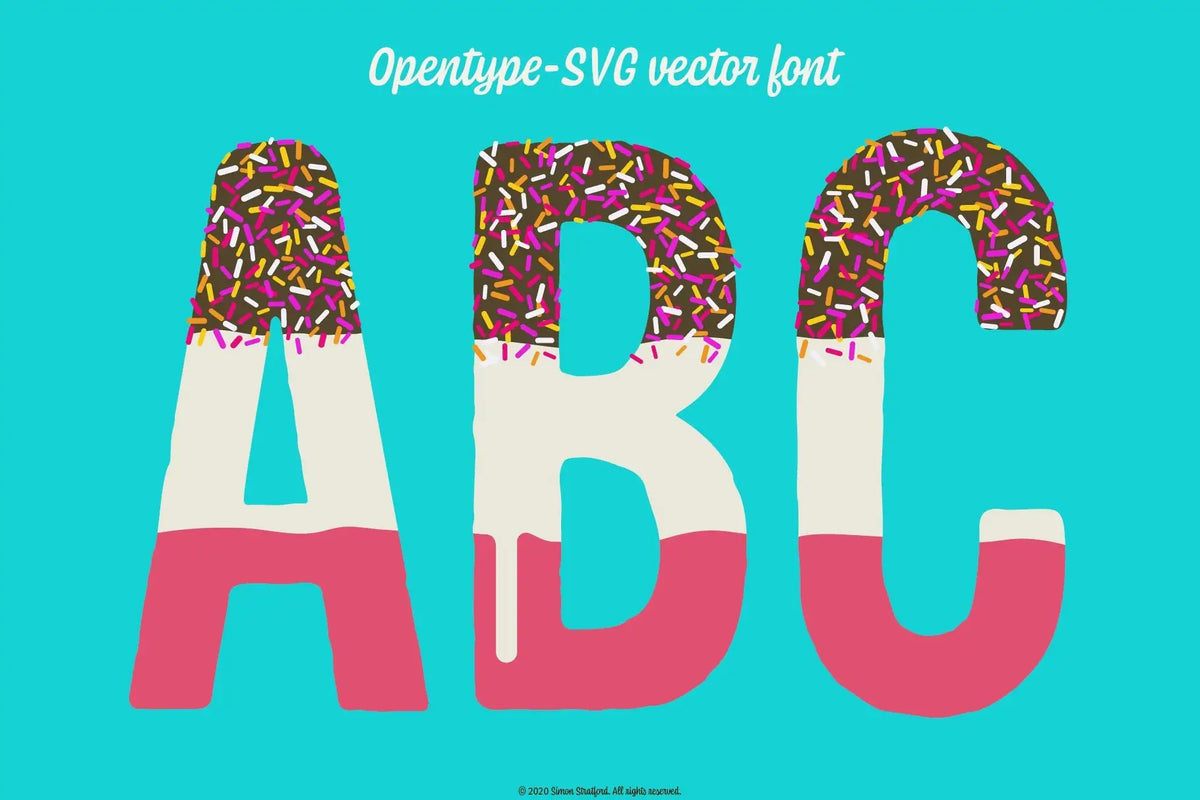
Fab Lolly is a full-colour vector font with OpenType SVG built in. Its chocolate coating, highlights, shadows and colourful sprinkles are built into the letters, but the words remain editable in compatible design software. Because the artwork is vector rather than bitmap, it can be enlarged without the edges turning into a row of tiny squares.
The original Fab ice lolly inspired the font. You can see it in the image below, assuming you have looked at the image below, which is why it is there. It has always been my favourite frozen treat: strawberry, vanilla, chocolate across the top and enough sprinkles to turn your tongue a funny colour. A funny colour being, at the time, one of the accepted measures of quality.
I’m not sure how popular they are now—Magnums seem to have taken over—but back in the day, Fabs were definitely the go-to lolly for a lot of people.
It already looked like a small piece of pop art on a stick, so turning it into a typeface made perfect sense. To me, anyway. Most people look at an ice lolly and think about eating it, rather than developing a full character set.
But first, What is an OpenType SVG colour vector font?
An OpenType SVG colour font is a font that stores graphical artwork inside its glyphs. A normal OpenType font usually gives your software a monochrome outline, which you then fill with a colour. OpenType SVG can place several colours, gradients, transparency, highlights and shadows inside the character itself.
Those graphics can be made from vectors or embedded bitmap images. Fab Lolly uses vector artwork, so it doesn't have a fixed pixel resolution. The curves stay sharp when the type is enlarged for a poster, packaging design or oversized headline.
The phrase can become confusing because SVG appears in the name of the format. SVG stands for Scalable Vector Graphics, but OpenType SVG fonts can also contain bitmap imagery. If scale matters, check how the individual font was built rather than assuming every SVG font is automatically vector.
Fab Lolly is.
How is a vector colour font different from a regular font?
| Feature | Regular OpenType font | Fab Lolly OpenType SVG |
|---|---|---|
| Letter construction | Single-colour outlines | Layered vector artwork |
| Colour | Applied in the design software | Built into each glyph |
| Texture and detail | Added afterwards | Chocolate, shading and sprinkles included |
| Scaling | Sharp at any practical size | Sharp at any practical size |
| Editing the wording | Editable | Editable in compatible software |
| Changing the colours | Normally straightforward | Built-in colours may not respond to the standard colour picker |
| Software support | Very broad | Requires OpenType SVG support |
Why I made Fab Lolly as vectors
Bitmap colour fonts can reproduce real paint, ink, fabric and photographic texture brilliantly. I use that approach when the material itself matters. The trade-off is resolution: embedded images contain a fixed number of pixels, so every bitmap font has a practical maximum size—this font doesn't have that problem.
Fab Lolly needed clean shapes, bright colour and graphic detail rather than photographic texture. Vector artwork made more sense. It keeps the edges crisp and lets the font move comfortably from a birthday card to a large poster without any problems.
A brief history of the Fab
J. Lyons & Co launched the original Fab in 1967. Early wrappers and advertising tied it to Thunderbirds, particularly Lady Penelope and Parker, linking the name to the show's familiar reply, “F-A-B”. The TV link eventually disappeared, but the lolly didn't. It passed through Lyons Maid, Nestlé and Froneri over the years, and is still a familiar sight in British freezers every summer.
I wondered whether you could take the ethos of a Fab lolly—assuming an ice lolly can have an ethos—and turn it into a typeface. The chocolate, the sprinkles, the white ice cream and the red icy bit all had to go somewhere. The chunky uppercase letters provided enough room for the lot, while the chocolate and sprinkles did most of the talking. Nobody bought a Fab for its restraint.
The result feels nostalgic, but it isn't trying to copy old packaging or reproduce the lettering from a wrapper.
It takes the character of the lolly and turns it into a working display font. That was much more interesting than drawing another vaguely retro alphabet.
Why Fab Lolly has drip and non-drip versions
Fab Lolly includes two uppercase styles. One has a playful drip; the other keeps the bottom of the letters clean.
You can use both in the same piece. Set the main phrase in the dripping style, then use the cleaner version for a second line. That creates contrast while keeping everything within the same visual language.
What software supports OpenType SVG colour fonts?